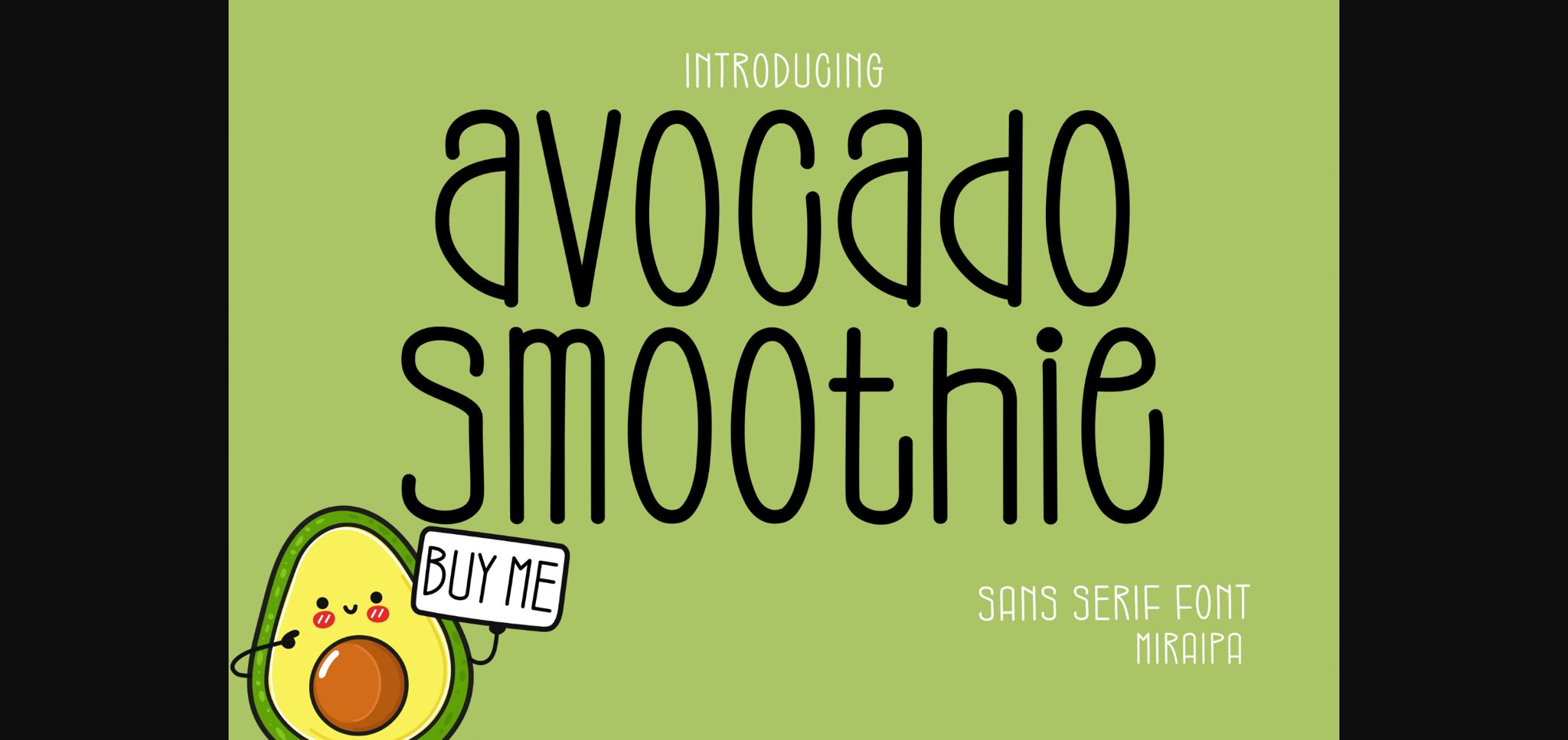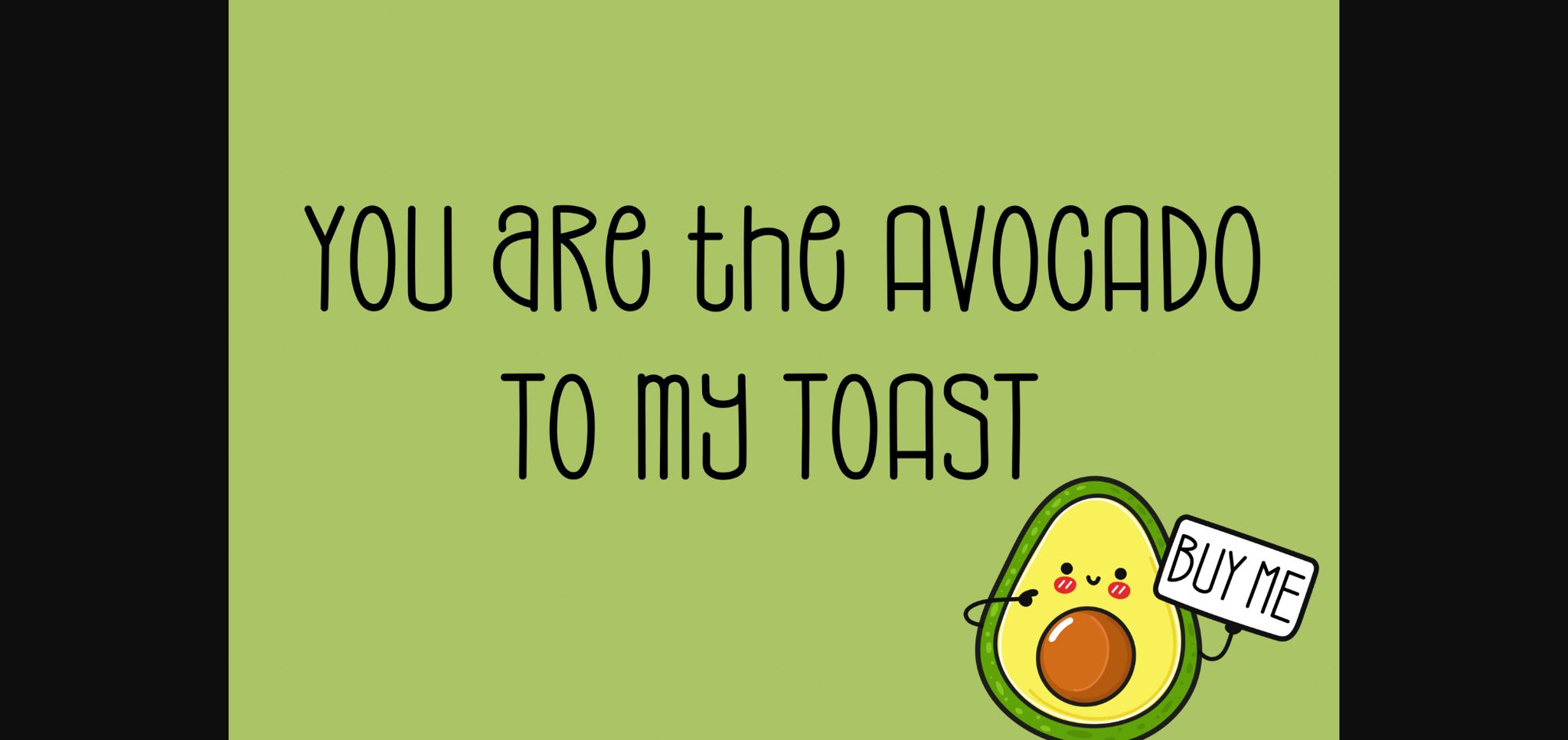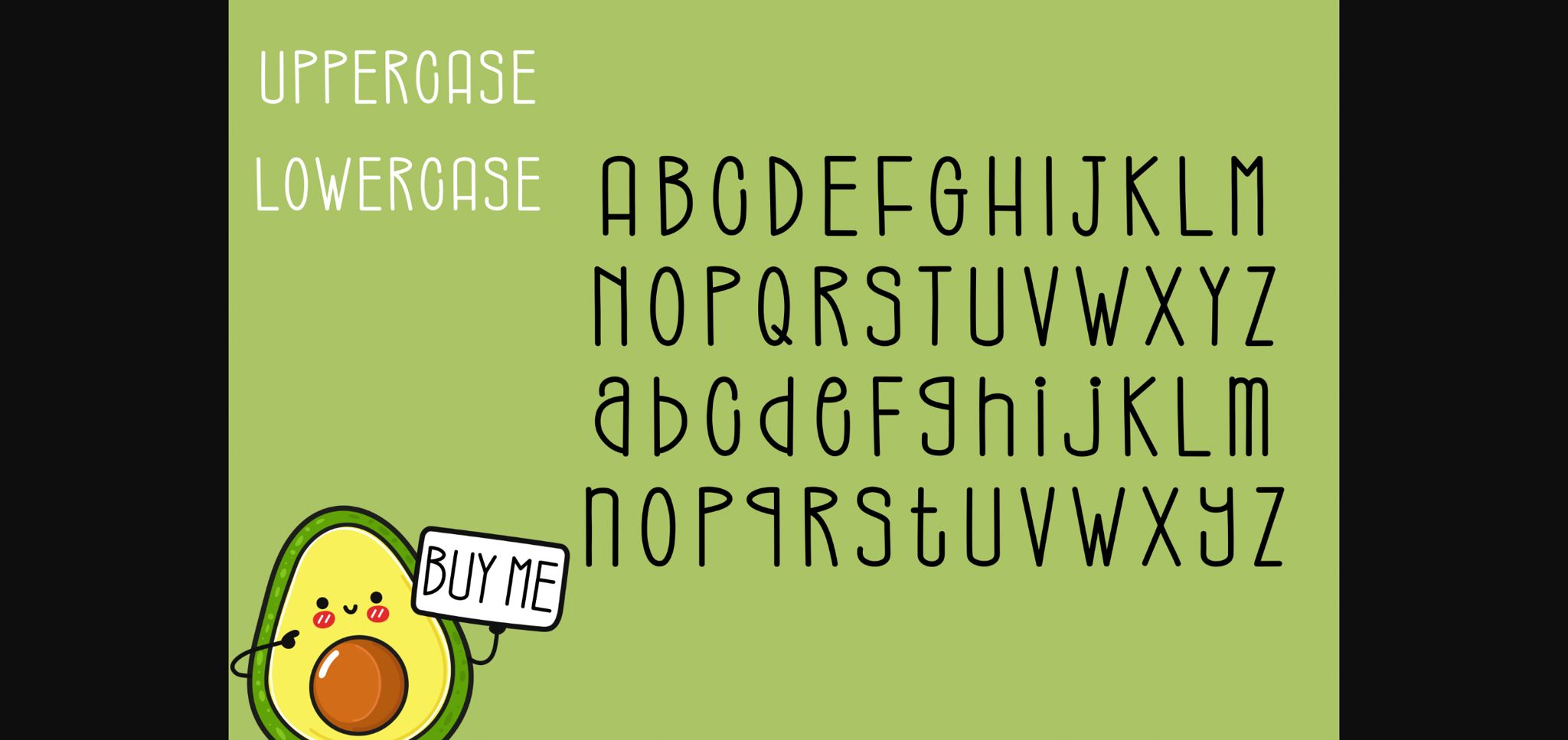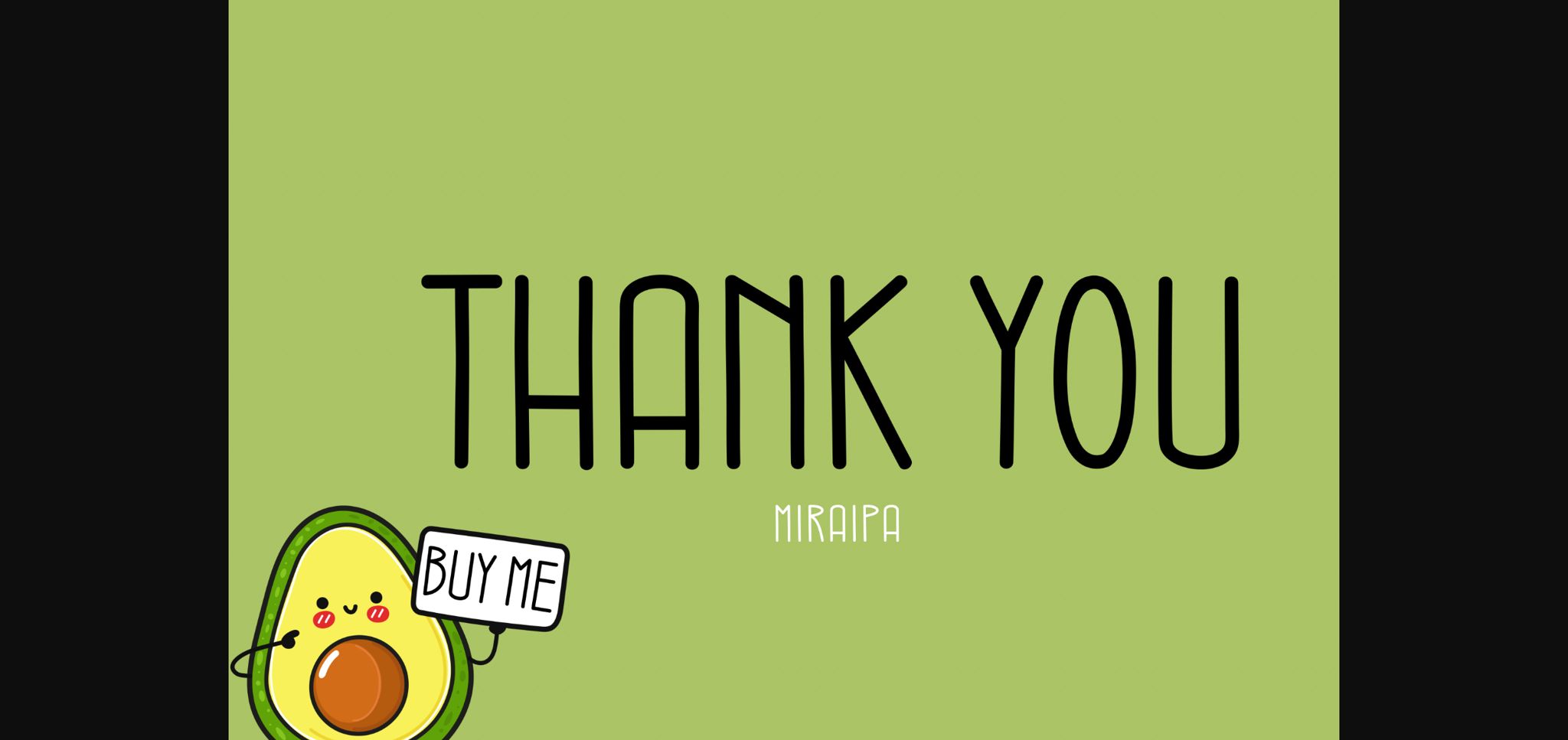
Avocado Smoothie Font
About Avocado Smoothie Font
Avocado Smoothie is a casual and friendly handwritten sans serif font perfect for use on cheerful topics. Very suitable for children’s themed designs, especially when combined with bright colors.